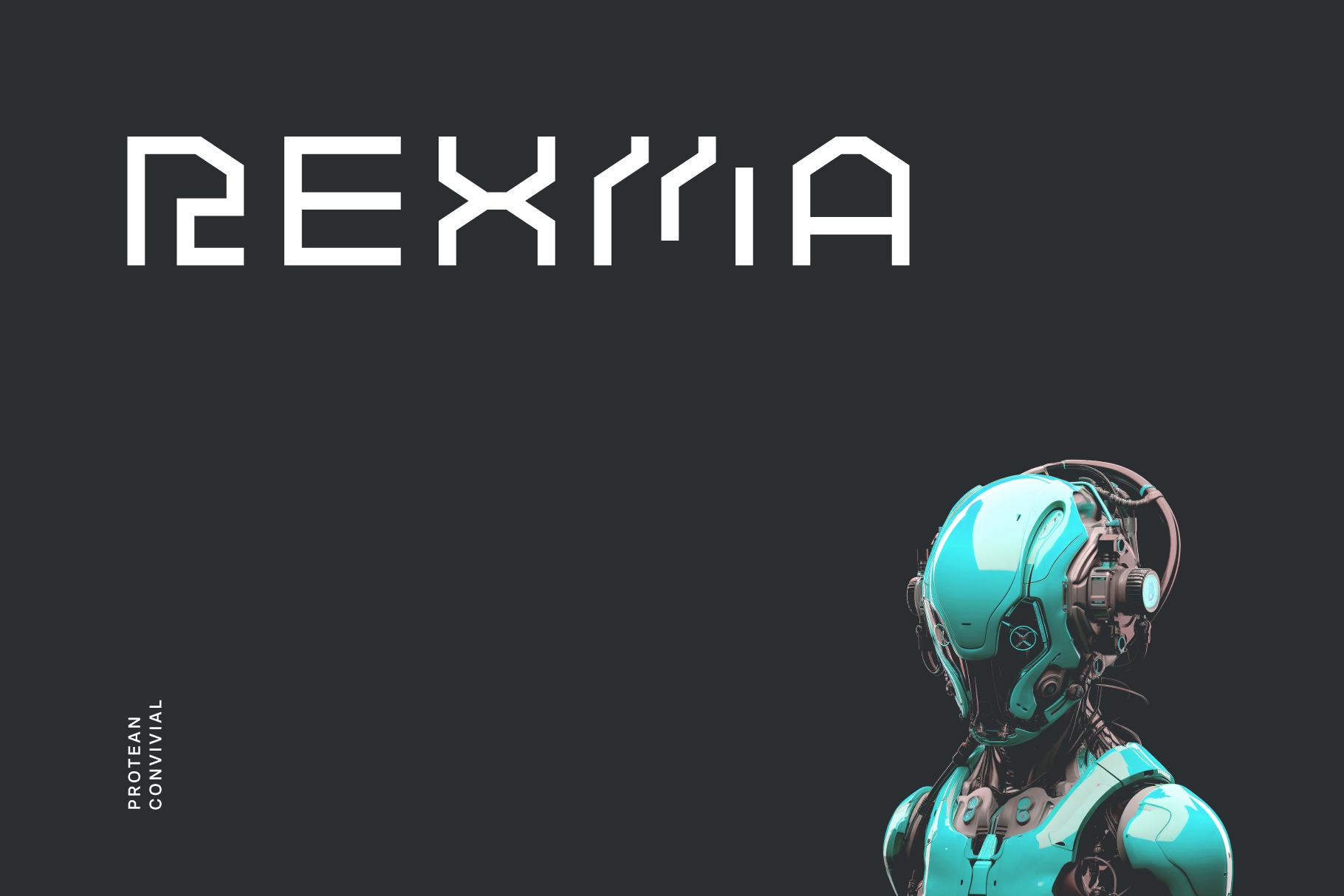
Rexma Font
Rexma is protean convivial mono lineal typeface apt for headline, editorial, branding, packaging, printed materials and typographic applications. 220+ glyphs including punctuation and numerical.